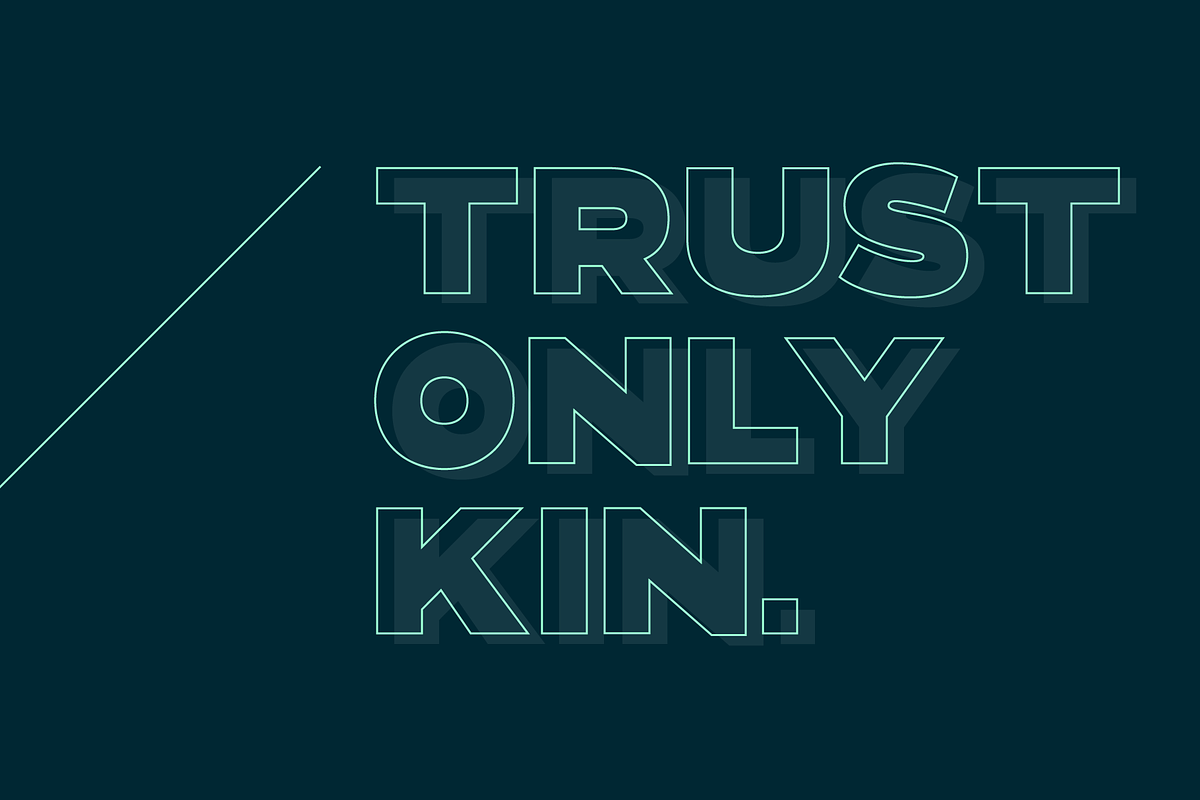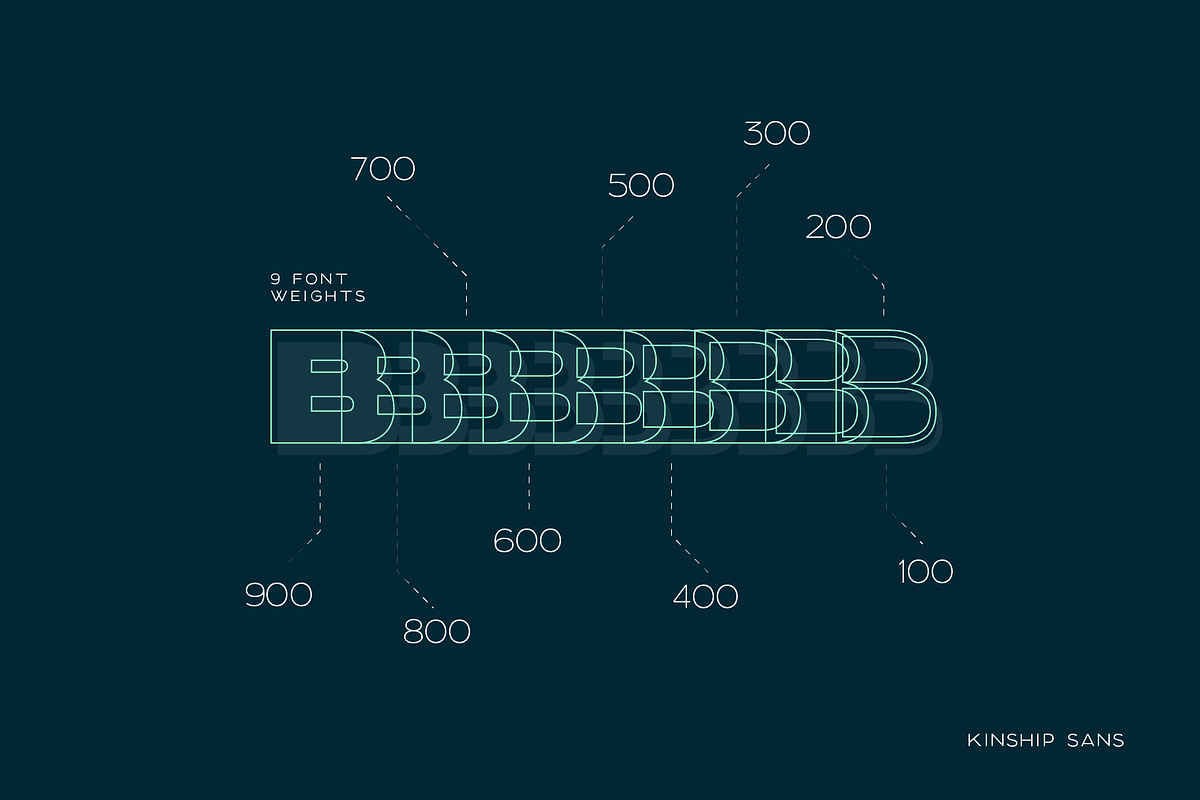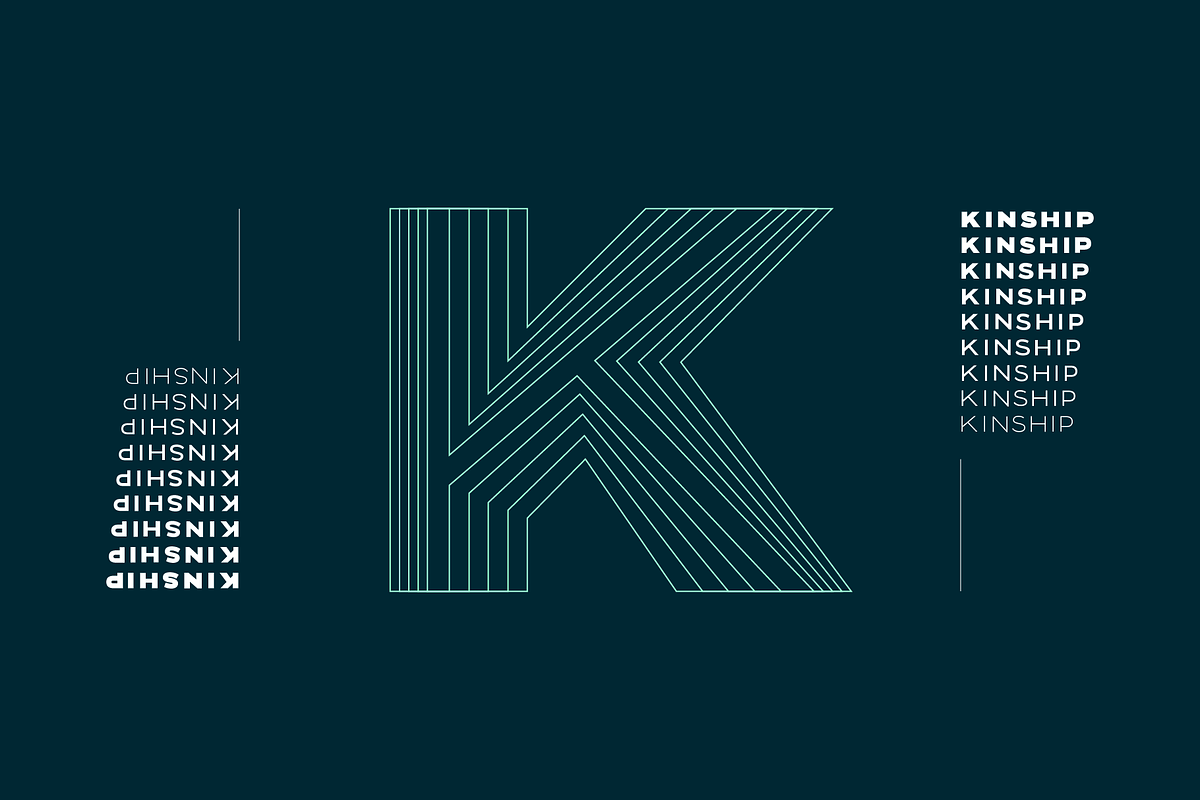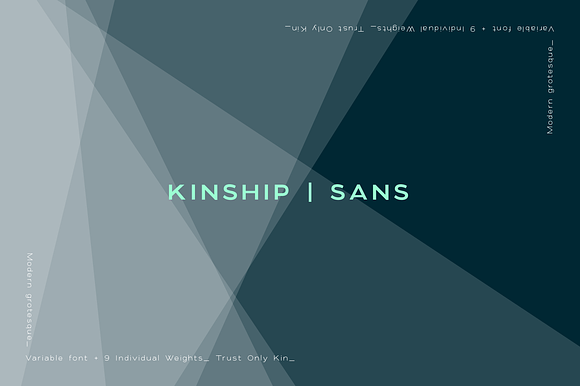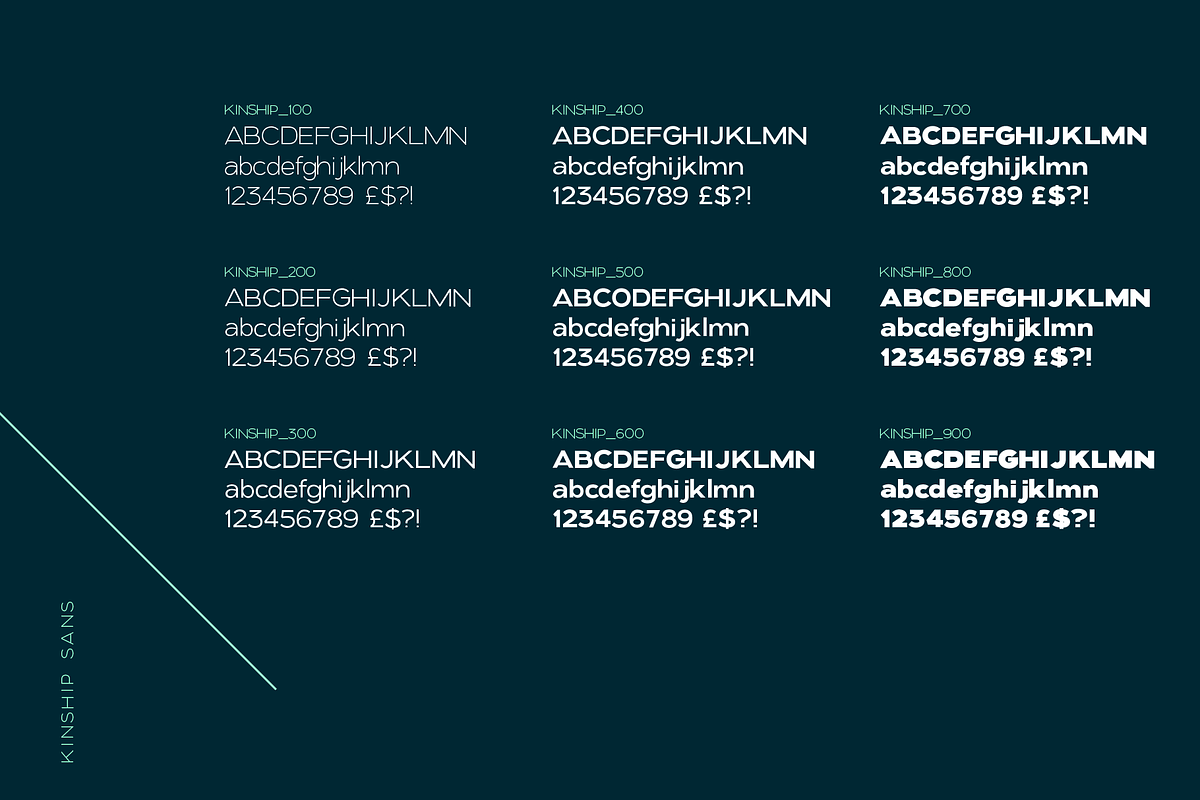
Kinship Sans - Grotesque Font Family
Introducing kinship Grotesque variable weight font family by We Are Colt
Kinship has been created to be an all-round go-to grotesque font that will work well for copy and titles.
With nine standard weights, this font is more flexible than a bungee rope.
Kinship is a sans serif modern classic grotesque font, perfect for adding personality to logos and brochures.
9 separate font weights + variable weight font for compatible software